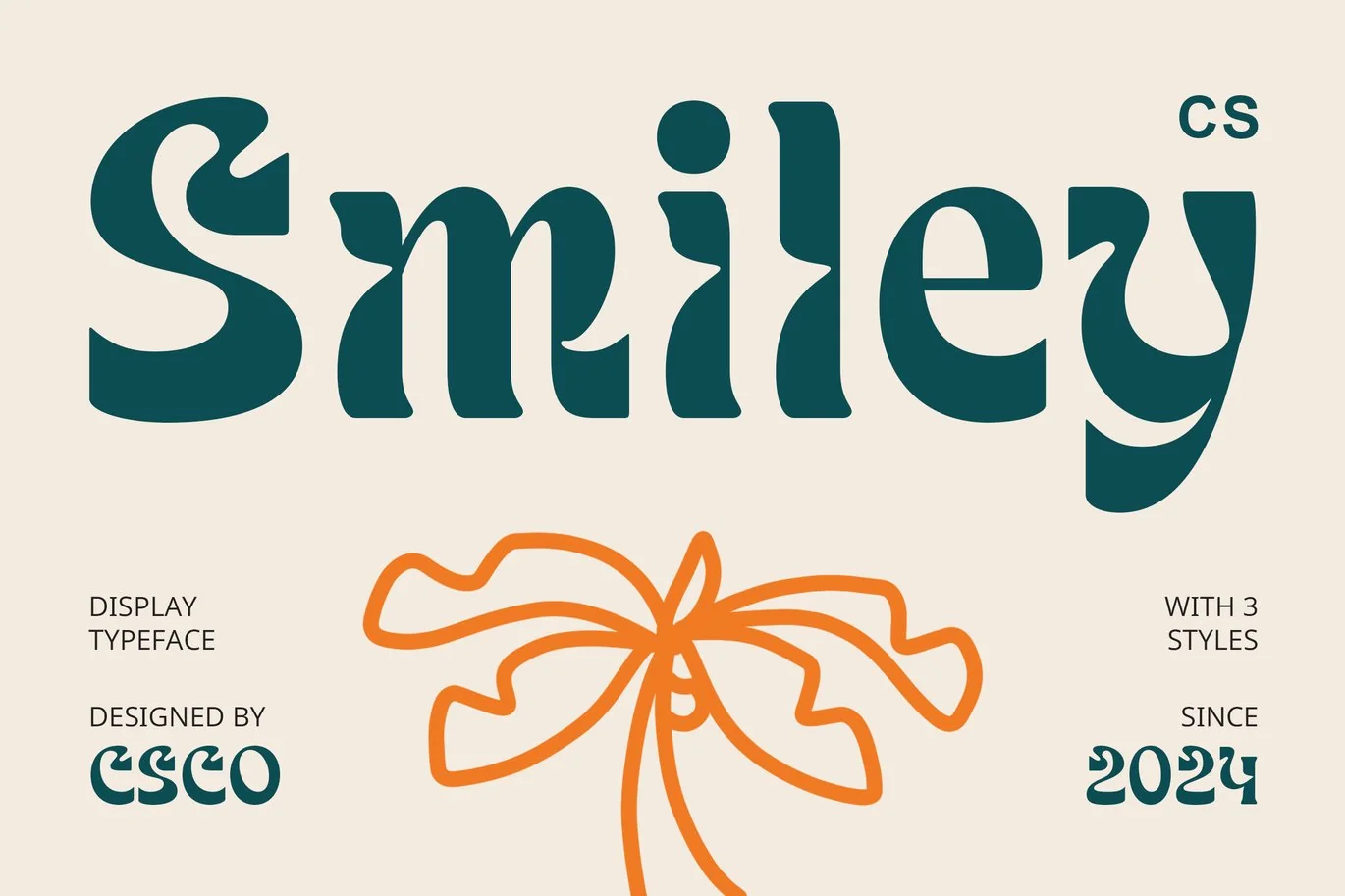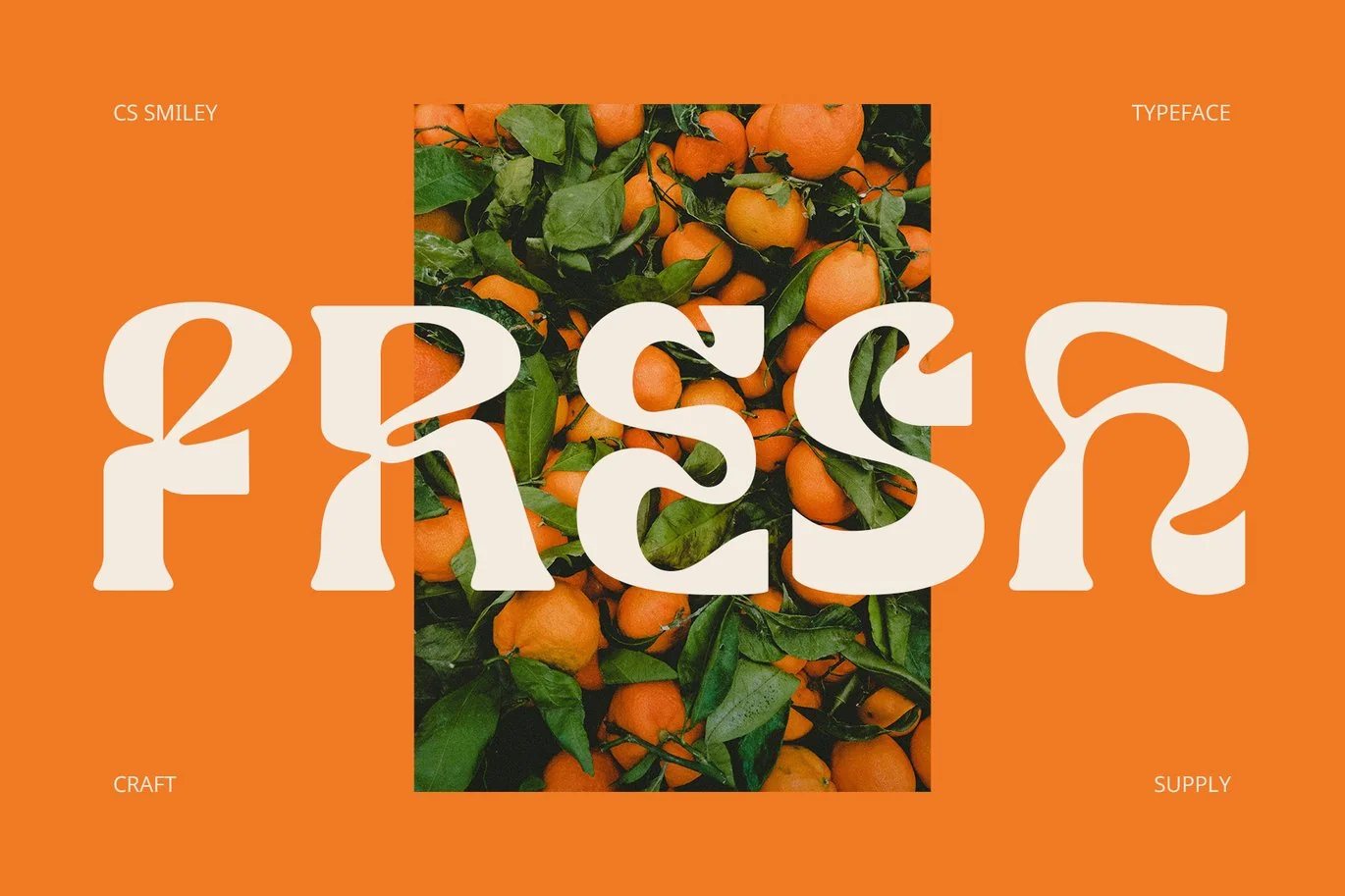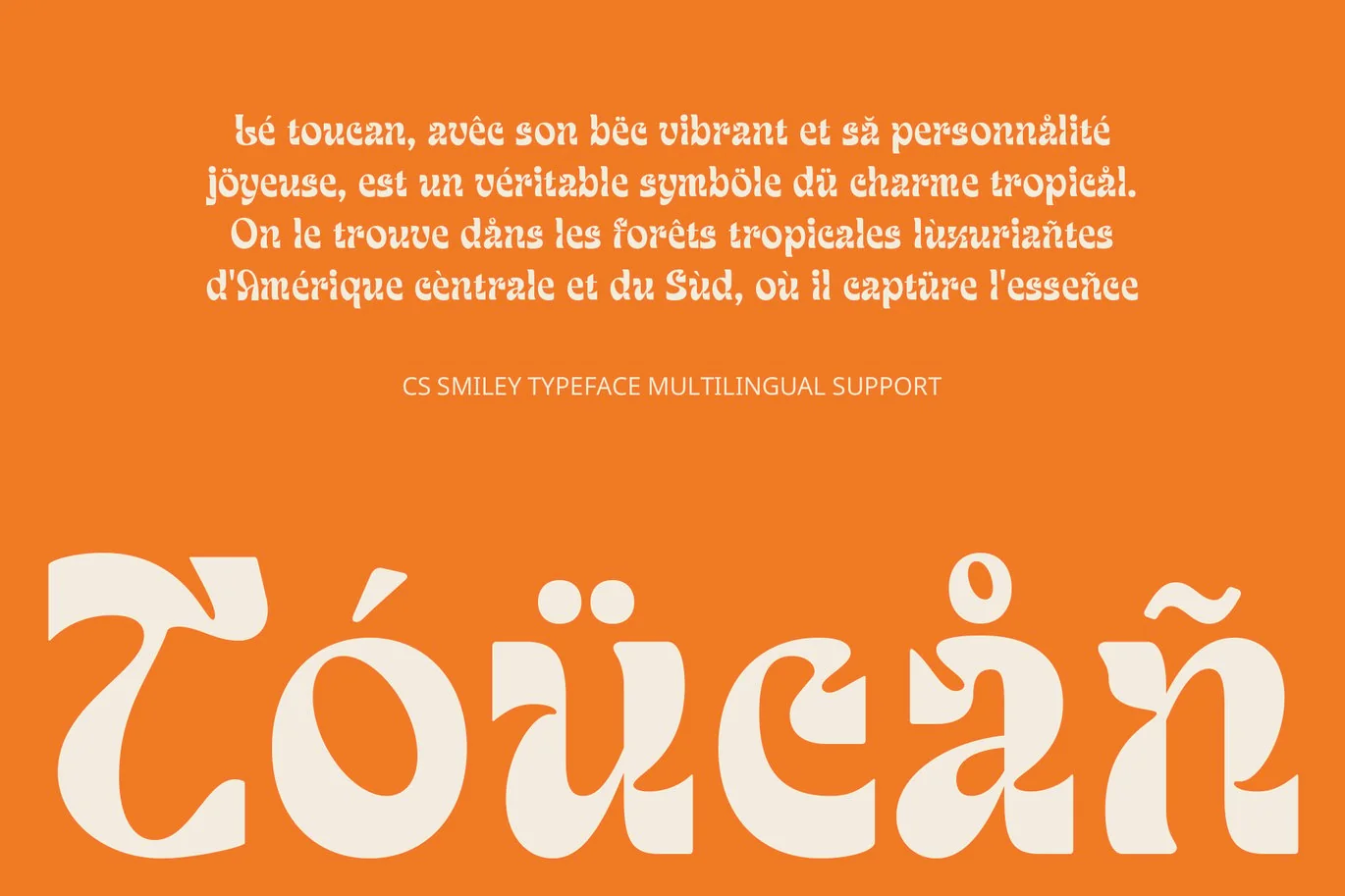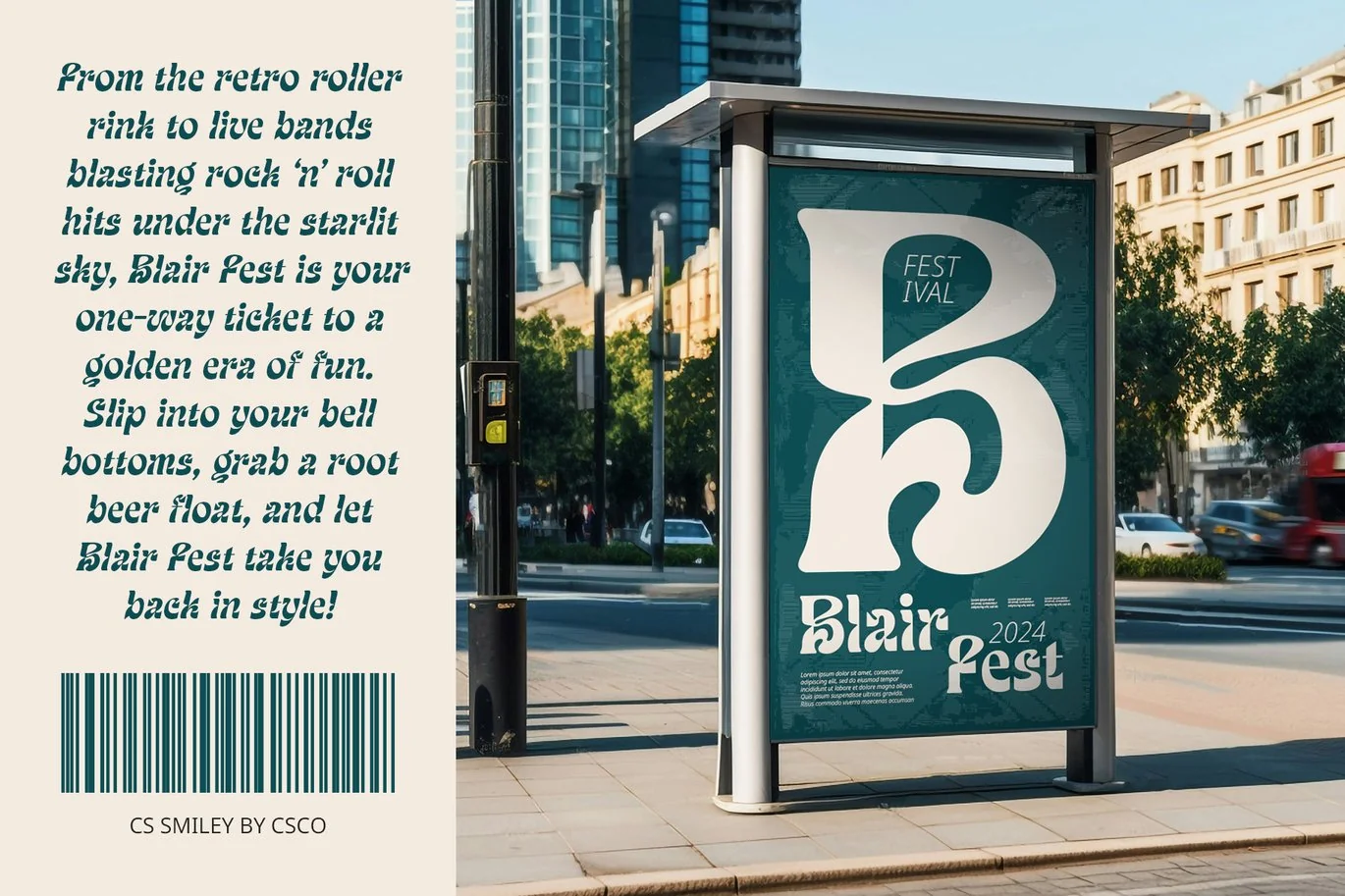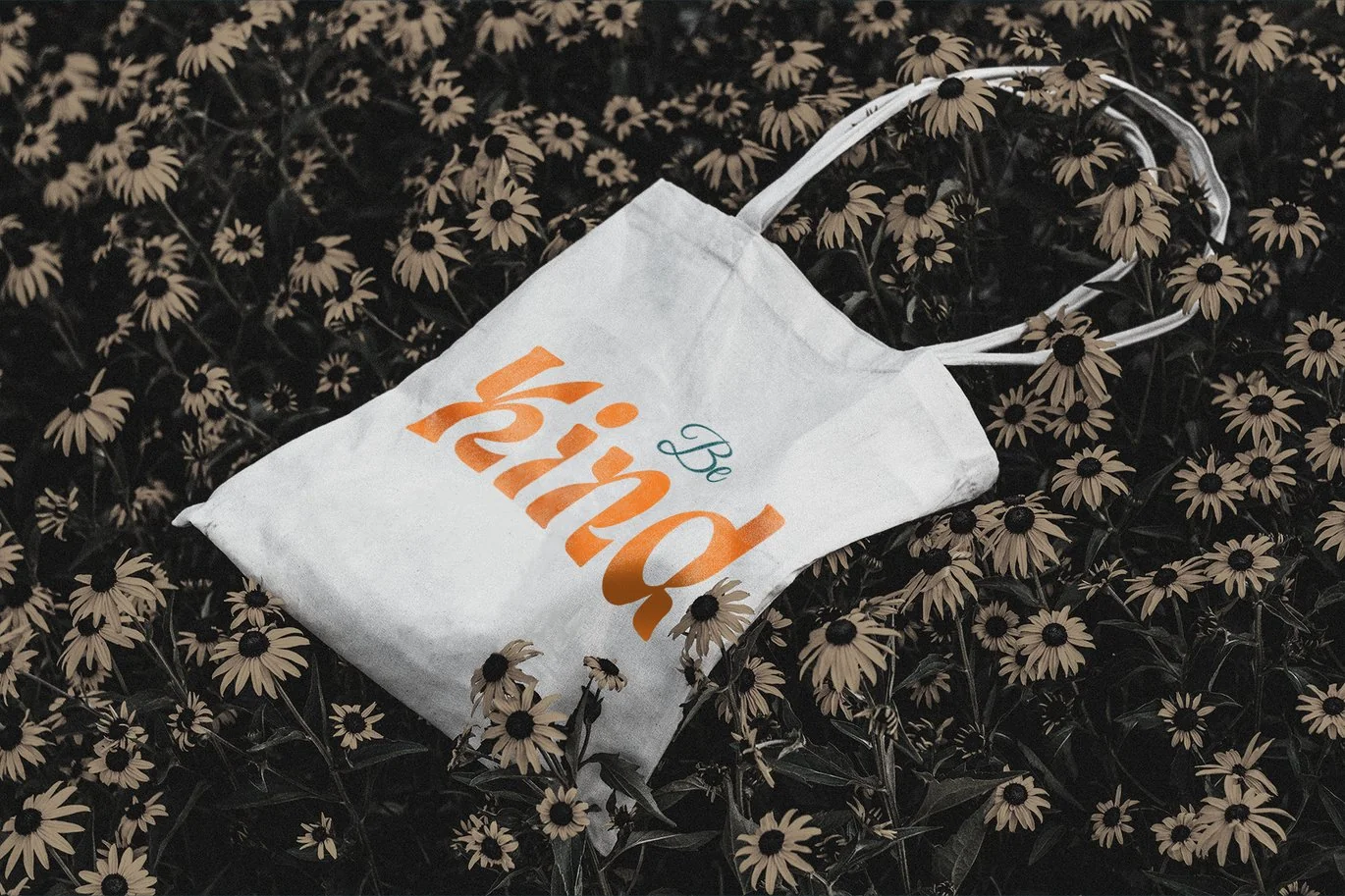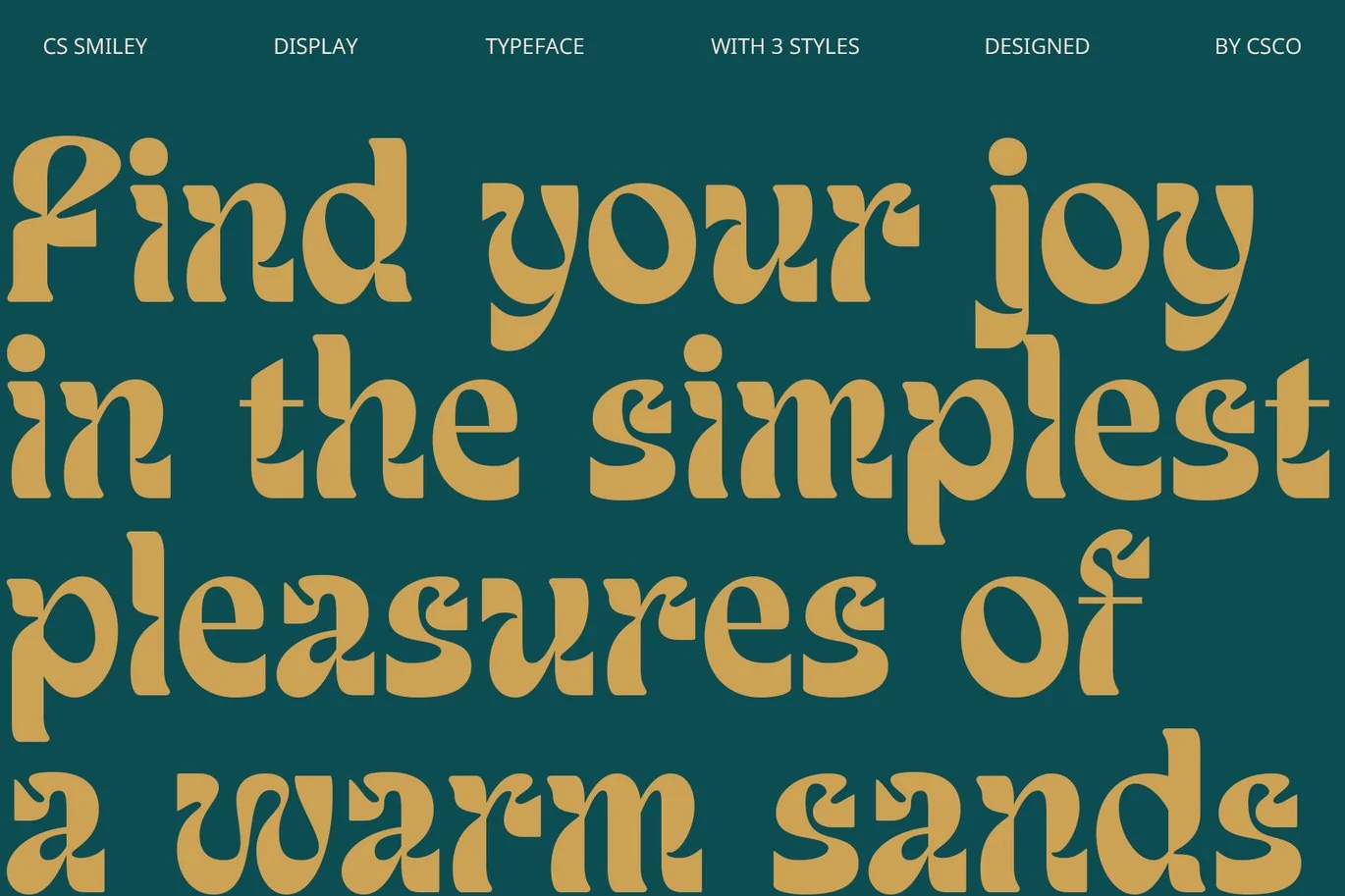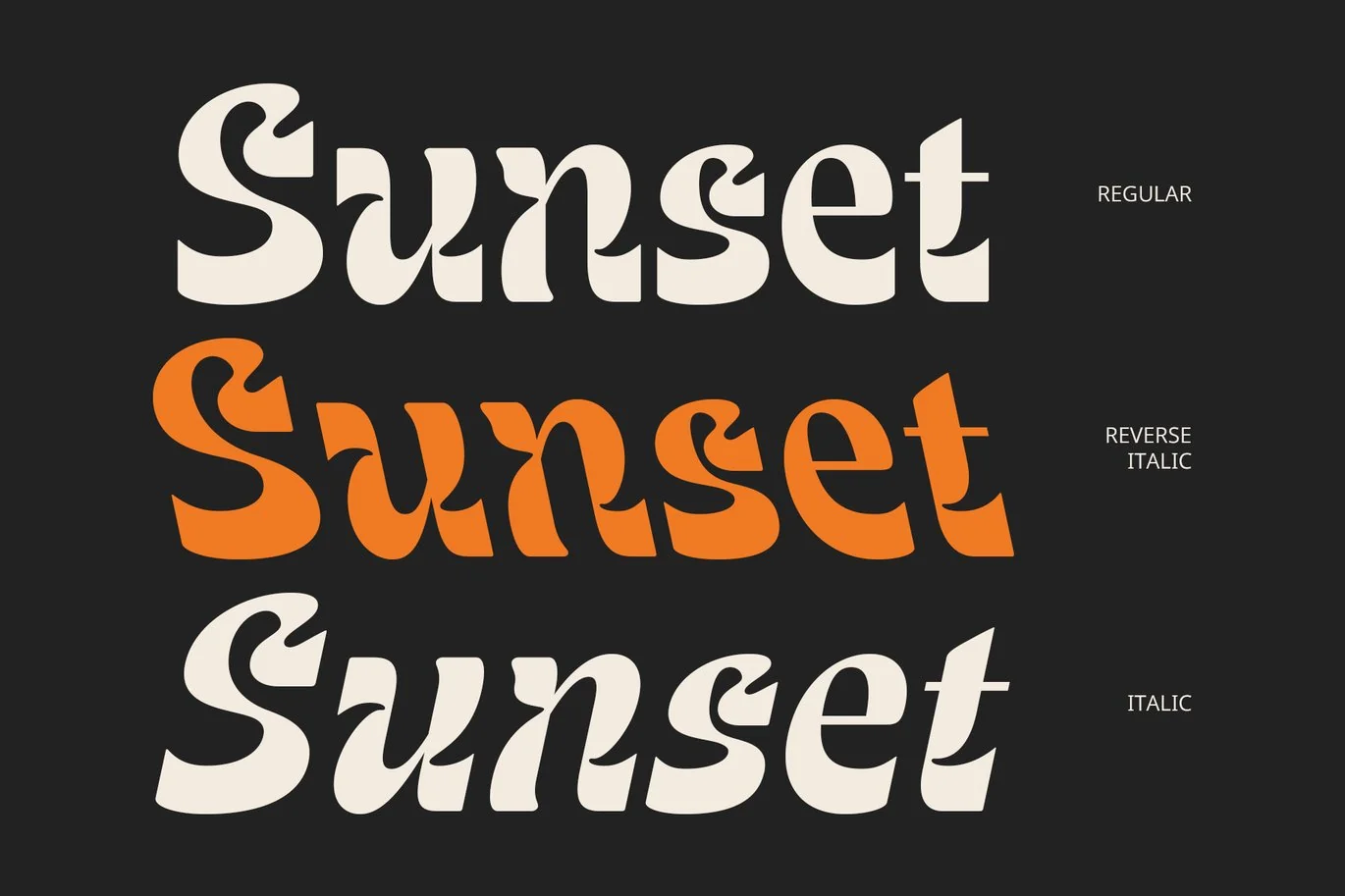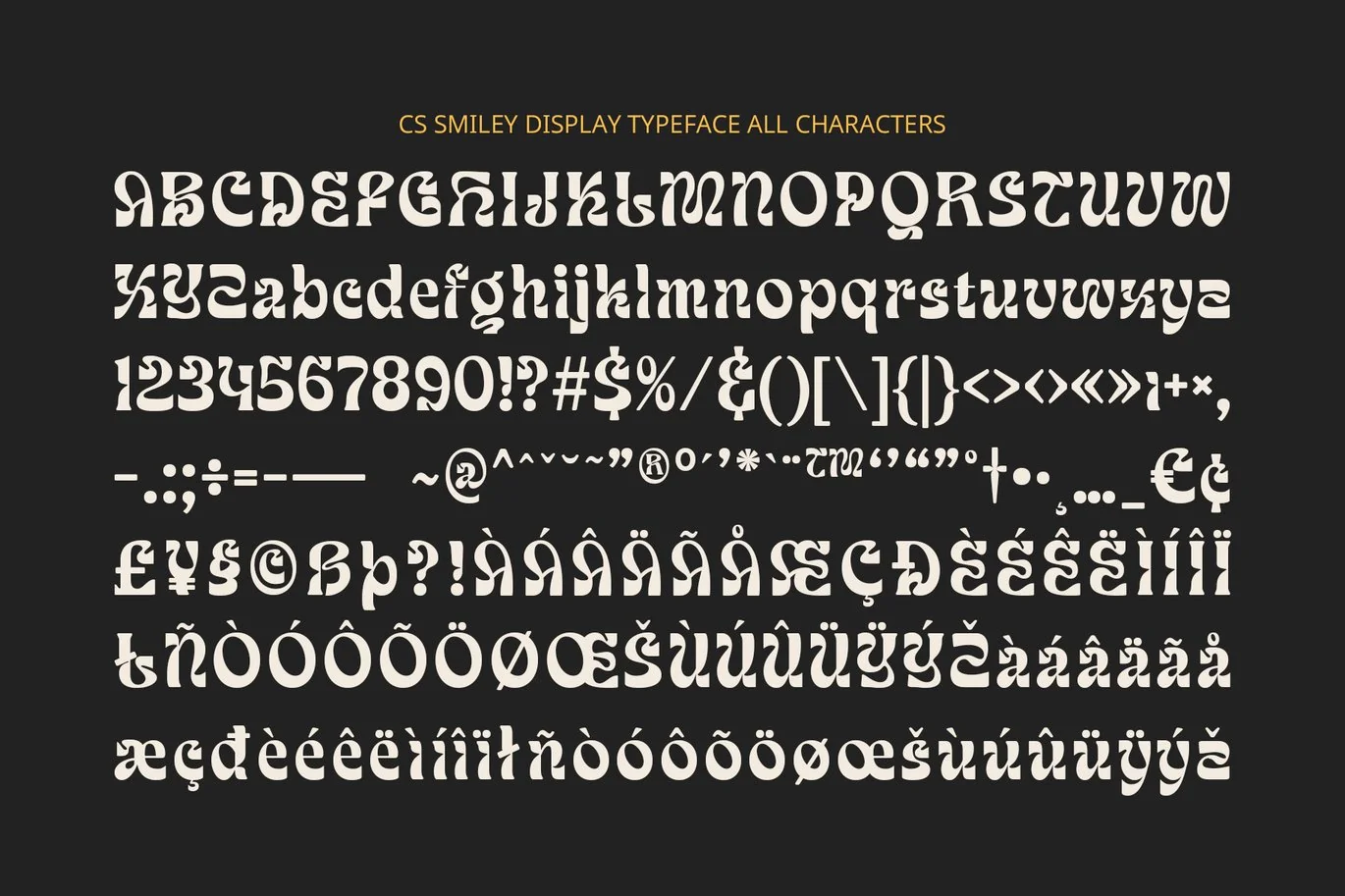
Smiley – Decorative Font
CS Smiley – Decorative Retro Font
A Playful and Ornate Vintage Aesthetic
CS Smiley is a decorative display font that evokes the charm and beauty of retro design, blending intricate, artistic elements with nostalgic influences from the mid-20th century. This typeface features bold, ornate details, capturing the essence of vintage aesthetics with its graceful curves, playful flourishes, and lively shapes. Its decorative form gives the font a sense of elegance while maintaining a fun and whimsical vibe.
Fun, Elegant, and Nostalgic
With its expressive and dynamic design, CS Smiley exudes a personality that is both delightful and sophisticated. The playful curves and flourishes bring a touch of joy to any project, while the bold elements add an eye-catching quality. This font captures the flair and energy of a bygone era, making it perfect for designs that need to stand out with a retro twist.
Perfect for Vintage-Inspired Projects
Ideal for vintage posters, branding, fashion, and event invitations, CS Smiley brings a unique blend of elegance and nostalgia to your designs. Whether you’re evoking the spirit of the past or adding a retro touch to modern projects, this font is perfect for designs that seek to capture the personality, charm, and playful essence of mid-century design.